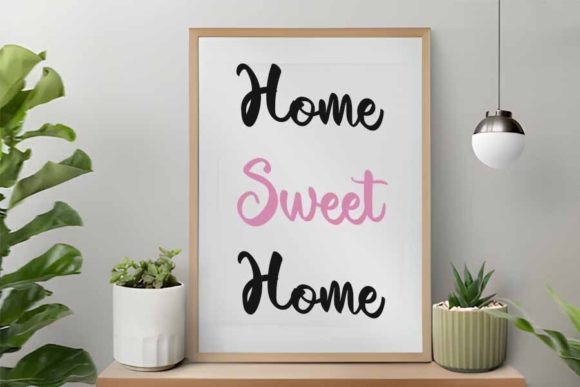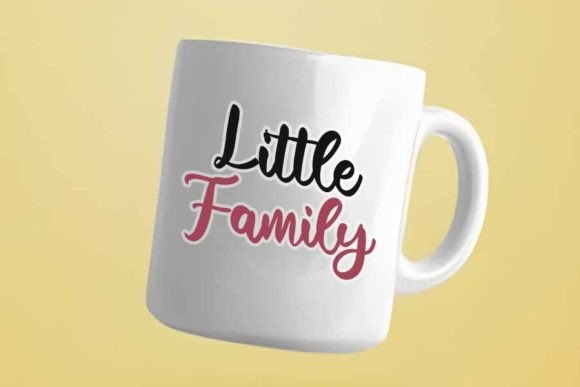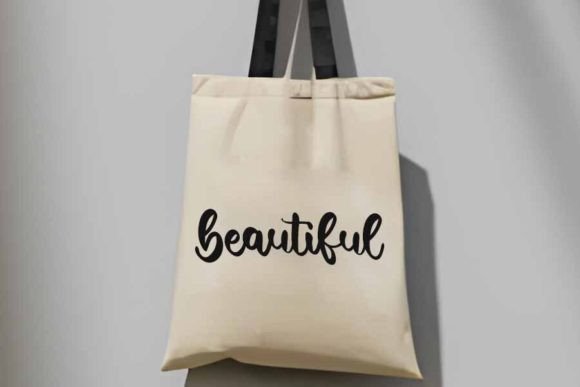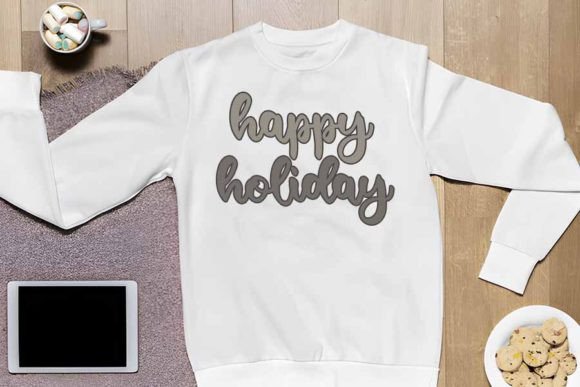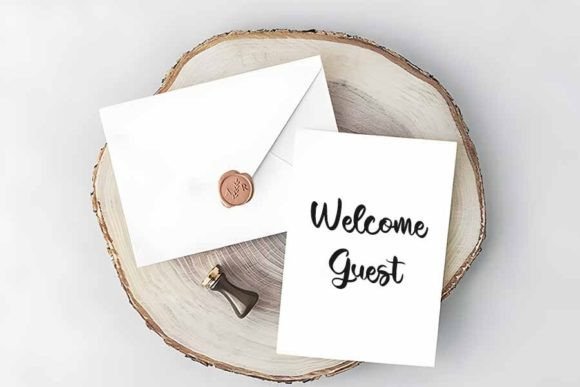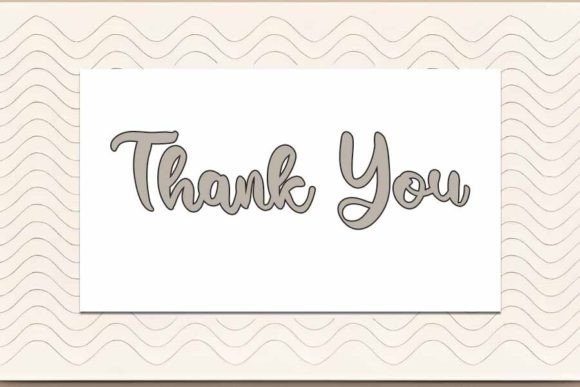
The Babyface Font: A Delicate and Elegant Design Companion
I still remember the design project that led me to discover the Babyface font. I was working on a whimsical branding project for a children’s boutique, and I was struggling to find the perfect font that would capture the essence of the brand. The client wanted something delicate, elegant, and playful, but not too over-the-top. After hours of scouring font libraries and testing various options, I stumbled upon Babyface – and it was love at first sight! 💕
- ✨ Delicate and elegant handwritten style that’s perfect for designs that require a touch of sophistication
- ✅ Well-balanced letters that make it easy to read and recognize
- ✅ Incredibly versatile – works well for both digital and print designs
- ✅ Easy to pair with other fonts to create a unique visual identity
Small Quirks and Limitations 🤔
- ⚠️ Some letters may appear a bit narrow, which can affect readability at very small font sizes
- ⚠️ Limited availability of stylistic alternates, which may limit design options for some users
If you love the Babyface font, you may also want to explore these similar fonts and alternatives:
- Lobster: A elegant and refined script font with a similar feel to Babyface. Use it for designs that require a touch of sophistication and luxury.
- Pacifico: A beautiful and elegant script font with a relaxed, casual vibe. Use it for designs that require a more laid-back and friendly feel.
- Great Vibes: A fun and energetic script font with a similar handwritten feel to Babyface. Use it for designs that require a playful and youthful touch.
- Carolyna Pro: A elegant and refined script font with a similar sense of sophistication to Babyface. Use it for designs that require a touch of luxury and glamour.
The Story Behind Babyface: Designer Inspiration
The Babyface font was designed by a talented typographer who wanted to create a font that would capture the essence of elegance and sophistication. With its delicate and refined letterforms, Babyface is the perfect choice for designers who want to add a touch of luxury to their designs. According to the designer, Babyface was inspired by the classic typography of the early 20th century, with a modern twist to make it more versatile and user-friendly.
Q: What is the best way to use Babyface in my designs?
A: Babyface is a versatile font that can be used in a variety of design contexts, from branding and advertising to packaging and digital design. Experiment with different font sizes, colors, and styles to find the perfect look for your design.
Q: Is Babyface a difficult font to read?
A: Babyface is a delicate and elegant font that can be a bit challenging to read at very small font sizes. However, it’s generally easy to read and recognize, making it a great choice for designs that require a touch of sophistication.
Q: Can I use Babyface with other fonts?
A: Yes, Babyface can be paired with other fonts to create a unique visual identity. Experiment with different font combinations to find the perfect look for your design.